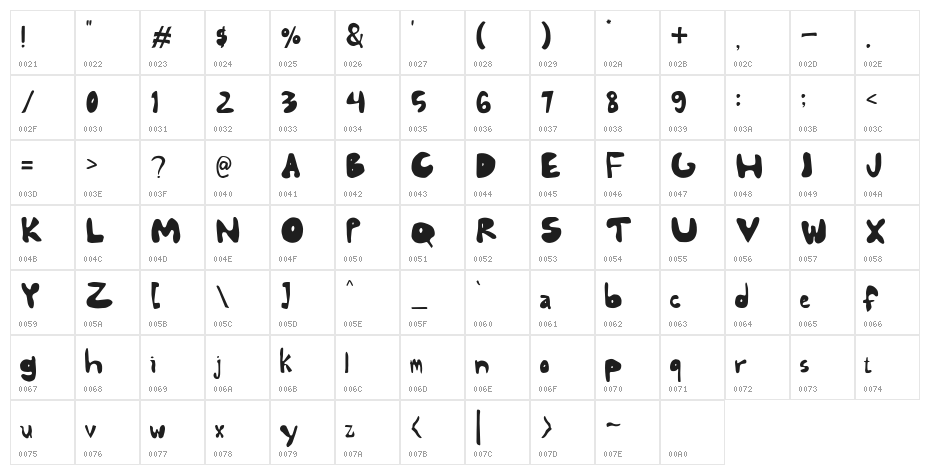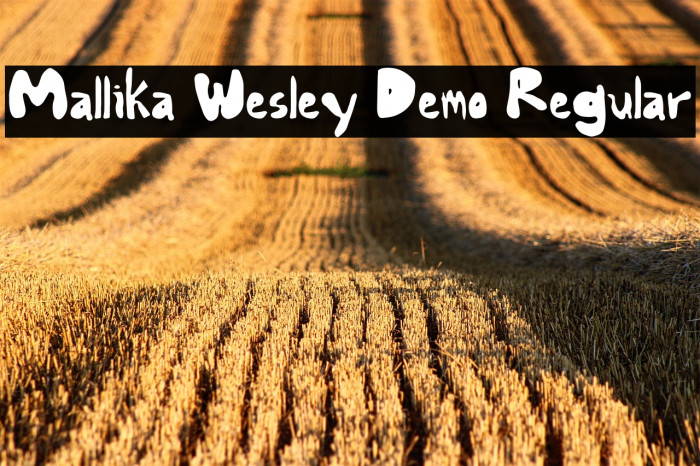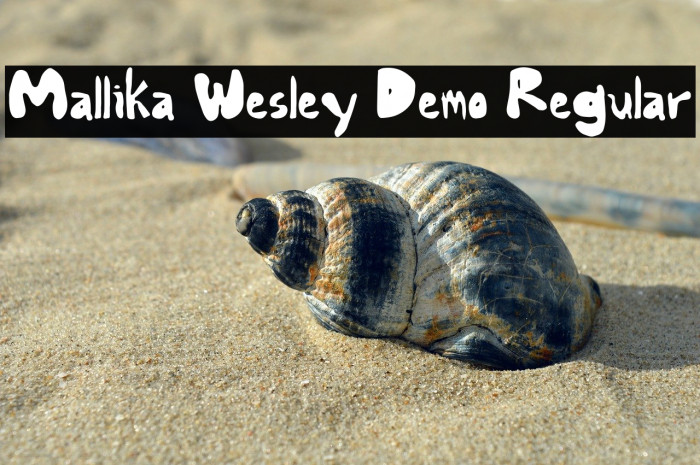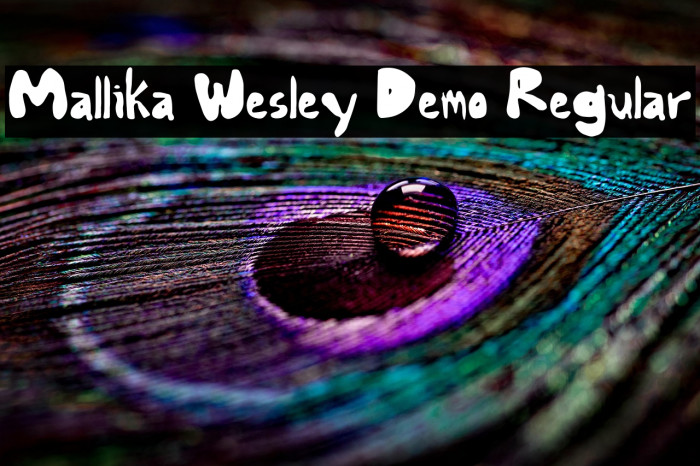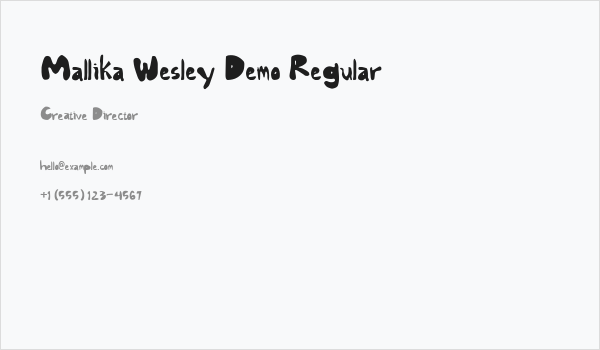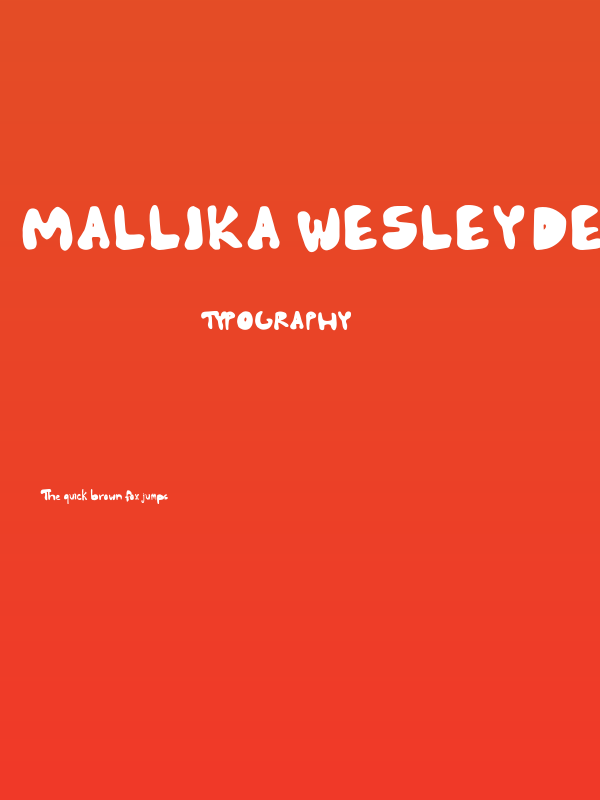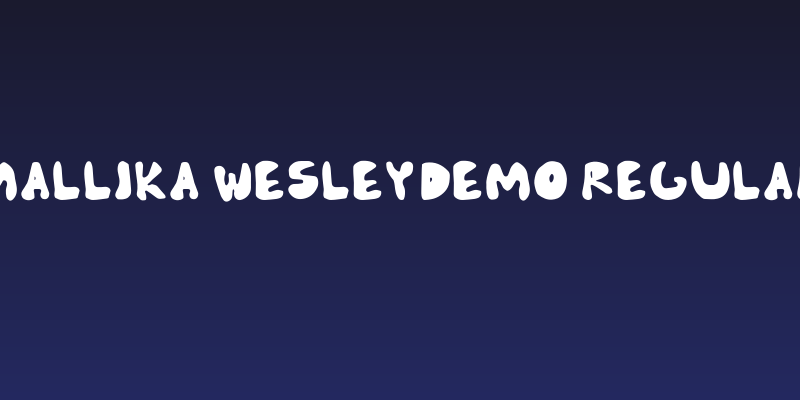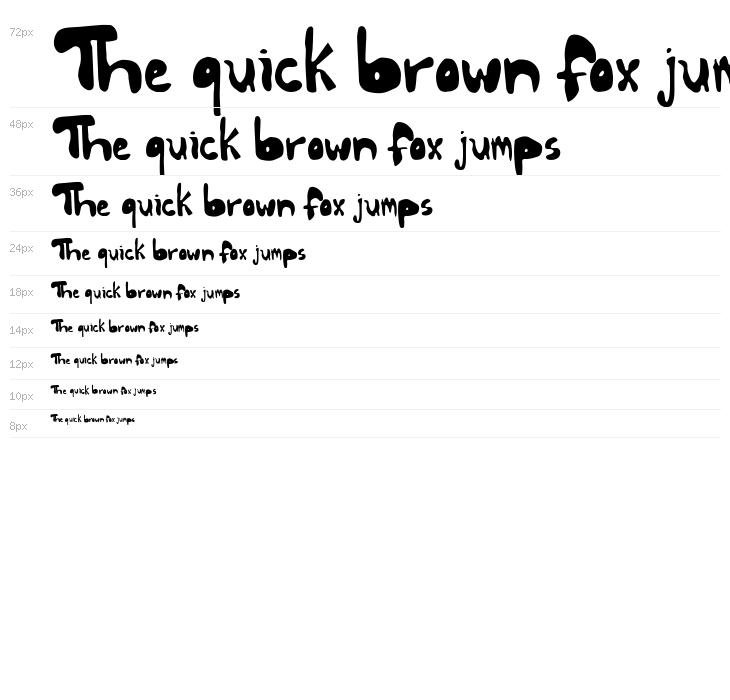
Mallika Wesley Demo Regular Font
Mallika Wesley Demo Regular Description
This playful and bold font features a unique, hand-drawn style with irregular, rounded shapes that give it a whimsical and informal appearance. The characters are thick and slightly uneven, adding to the font's charm and making it stand out. The uppercase and lowercase letters maintain a consistent style, with the lowercase letters being slightly smaller and more compact. Numbers and special characters follow the same playful design, ensuring a cohesive look across all text. This font is perfect for projects that require a fun and engaging aesthetic.
| Proposed Projects | Ideal for children's books, playful branding, casual invitations, and creative posters. |